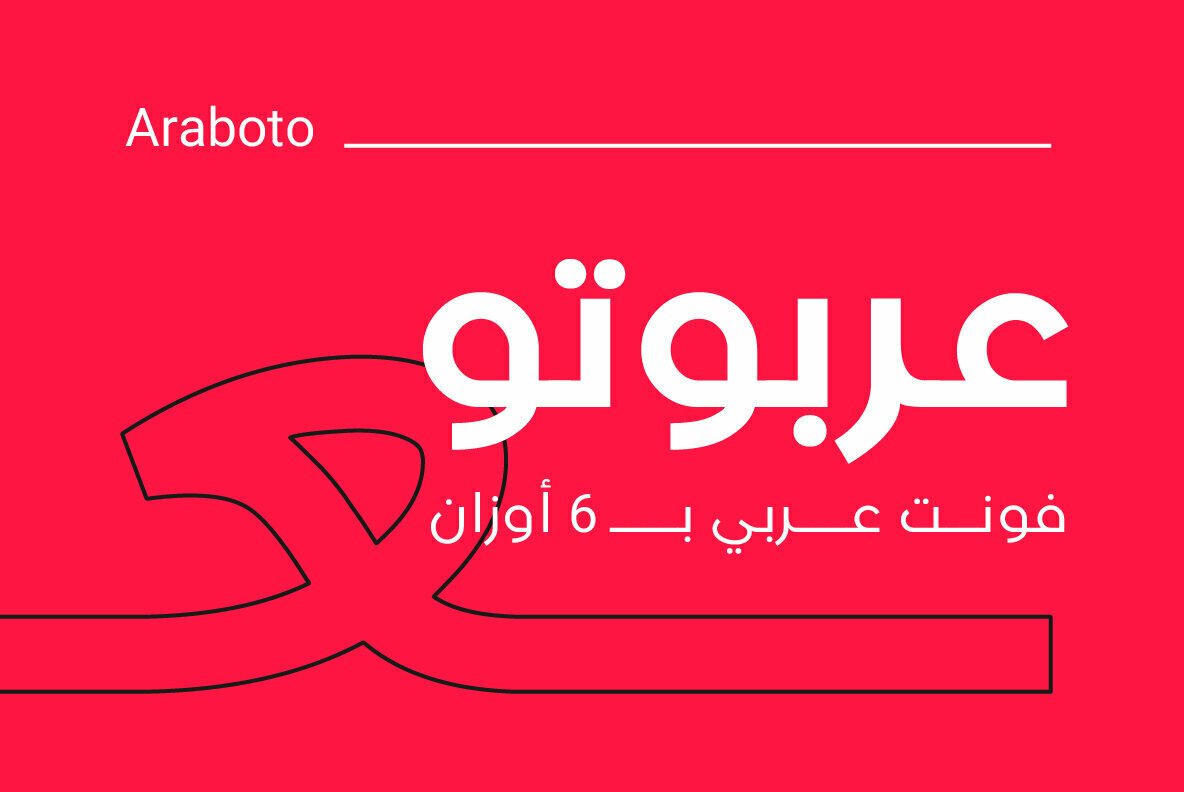
Araboto Arabic Font Family
Arabuto is a thoughtfully crafted Arabic typeface that offers a distinctive voice for contemporary design. With its unique character and balanced proportions, this font brings personality and visual interest to any project while maintaining excellent readability.
Design Characteristics:
- Distinctive Arabic design with unique character
- Balanced, harmonious proportions
- Versatile weight suitable for multiple applications
- Contemporary aesthetic with authentic foundations
- Memorable visual personality
Arabic Script:
- Complete Arabic character set
- Full support for diacritics and marks
- Proper character connections and positioning
- Optimized for various sizes and applications
- Clean, legible forms at any scale
- Logo Design: Create memorable brand identities
- Branding: Distinctive visual identity systems
- Headlines: Make bold statements with unique typography
- Packaging: Standout product design
- Posters: Eye-catching promotional materials
- Social Media: Engaging content with personality
- Website Design: Memorable digital experiences
- Print Materials: Brochures, flyers, publications
- Signage: Distinctive displays
- Distinctive Character: Stands out from conventional fonts
- Versatile Application: Works across print and digital media
- Memorable Design: Creates lasting impressions
- Excellent Readability: Clear forms at any size
Key Features of Arabuto Font:
- Distinctive Arabic design with unique character
- Complete Arabic character set
- Perfect for logos, branding, and standout designs
- Logo and brand identity designers
- Graphic designers seeking distinctive typography
- Packaging and product designers
- Social media content creators
- Advertising and marketing professionals
- Anyone wanting memorable Arabic typography